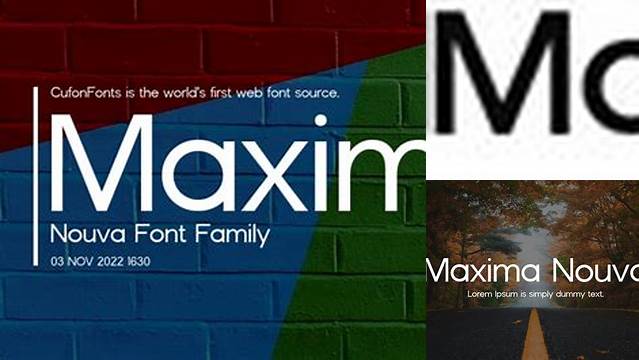
Understanding Maxima Nouva Font: A Typographic Gem
Hey guys, let's dive into the world of typography and talk about the Maxima Nouva font. If you're on the hunt for a typeface that blends modern sophistication with a touch of classic elegance, you've probably stumbled upon this beauty. Maxima Nouva isn't just another font; it's a meticulously crafted design that brings a unique personality to any project. Whether you're a seasoned graphic designer or just starting out with your first branding project, understanding the nuances of a font like Maxima Nouva can significantly elevate your work. This font is known for its clean lines, balanced proportions, and a subtle warmth that makes it incredibly versatile. It strikes a perfect chord between being legible for body text and distinctive enough for headlines and logos. The sheer attention to detail in its design, from the precise curves to the consistent stroke weights, speaks volumes about the quality you can expect. It's the kind of font that doesn't shout for attention but rather commands it through its understated grace. We'll explore why this particular typeface has garnered so much attention and how you can incorporate its charm into your own creative endeavors. Getting a handle on what makes a font like Maxima Nouva special is key to making informed design choices. It's all about finding that perfect visual voice for your message, and Maxima Nouva offers a compelling option for many different scenarios. Let's unravel the appeal of this font and make sure you know exactly what you're getting when you decide to use it. The goal here is to provide you with a comprehensive understanding, so you can confidently decide if it's the right fit for your next big idea. It's a journey into good design, and typography is at its heart.
Why Choose Maxima Nouva Font for Your Projects?
So, what makes Maxima Nouva font stand out from the crowd, you ask? Well, for starters, its adaptability is a huge selling point. This font plays well with others, meaning it can be paired with a variety of other typefaces without clashing. Imagine using it for your website's main headings – it adds a touch of authority and style. Then, perhaps pairing it with a simpler, more utilitarian font for the body copy ensures maximum readability. It's also fantastic for branding. Think about logos, business cards, or packaging. Maxima Nouva lends an air of professionalism and sophistication that can really boost a brand's image. It's not overly trendy, which means it has staying power. You won't have to worry about your design looking dated in a year or two. Another reason designers love it is its extensive character set. This means it supports a wide range of languages and includes various weights and styles (like italics and bold versions), giving you plenty of creative control. This level of detail ensures that no matter the specific requirements of your project, Maxima Nouva can likely accommodate it. The subtle quirks in its letterforms give it a distinctive character without being distracting. It's a font that feels both modern and timeless, a rare combination in the design world. If you're aiming for a clean, contemporary look with a hint of personality, Maxima Nouva is definitely a contender worth considering. It’s about choosing a tool that not only looks good but also performs exceptionally well across different media and applications, making your design process smoother and the final output more impactful.
Exploring the Different Weights and Styles of Maxima Nouva
When we talk about the Maxima Nouva font, it's important to appreciate the versatility that comes with its various weights and styles. This isn't just a one-trick pony; it's a whole family of characters designed to work together harmoniously. You'll typically find options ranging from a delicate Thin or Light weight, perfect for elegant, airy designs or secondary text, all the way up to a robust Black or Heavy weight that commands attention. These different weights aren't just for show; they serve specific functional purposes in design. A Light weight might be ideal for a subtle watermark or a tagline that shouldn't overpower the main content. Conversely, the Bold or Black weights are your go-to for headlines, subheadings, or any text that needs to make a strong visual statement. Beyond the weight variations, Maxima Nouva often includes italicized versions. These aren't just standard slanted letters; they're usually expertly designed to complement their upright counterparts, adding dynamism and emphasis where needed. Think of using italics for pull quotes, strong emphasis within a sentence, or even for a more sophisticated, flowing feel in certain contexts. The availability of these different styles ensures that you have a cohesive typographic palette to work with. You can create hierarchy and visual interest within your designs by simply switching between weights and styles, all while maintaining the core aesthetic of Maxima Nouva. This consistency is crucial for professional-looking design, ensuring that your brand or message feels unified and well-considered. It’s like having a set of specialized tools, each designed for a particular job, all stemming from the same high-quality source. This comprehensive family allows for intricate typographic systems to be built, making Maxima Nouva a truly powerful asset in any designer's toolkit.